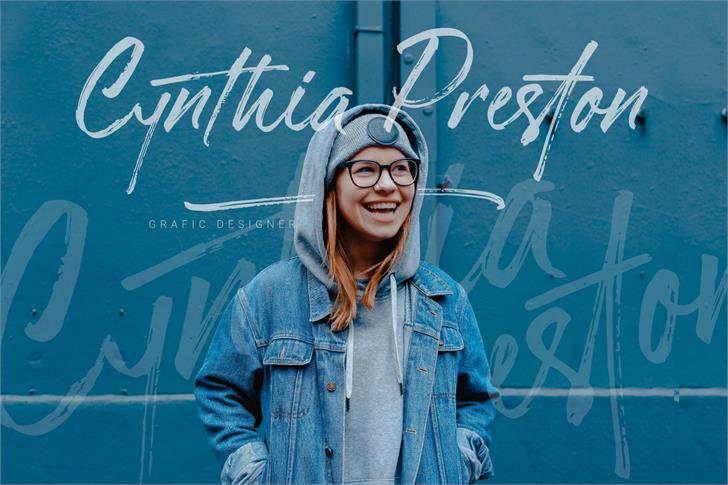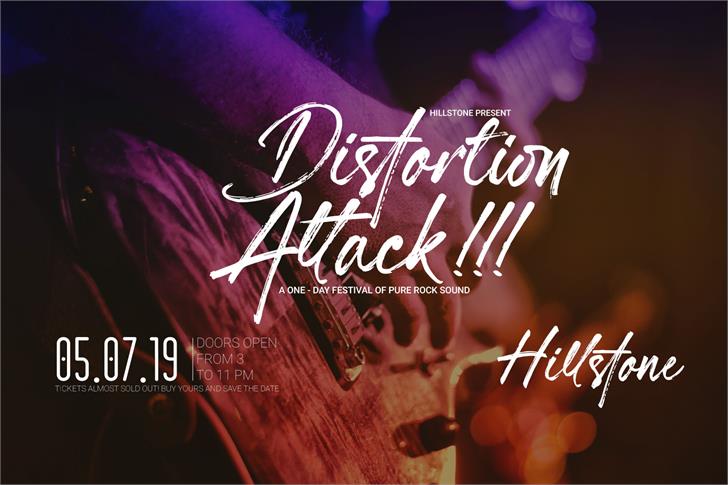
Free Hillstone Brush Script Font
We're glad to feature this gorgeous Free Hillstone Brush Script Font. This free font file was found from the amazing source called Font Space. Showcase your designs like a graphic design pro by adding a new touch with this fancy font.